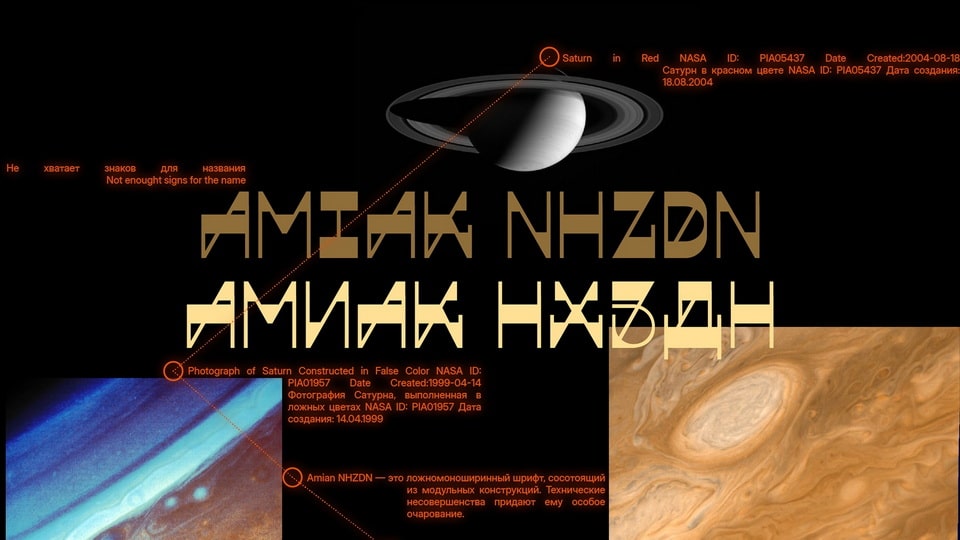
Download Amiak NHZDN font, a bold and unconventional display typeface that defies expectations with its striking reverse contrast and fake monospaced design.
Designer: Konstantin Kuznetsov